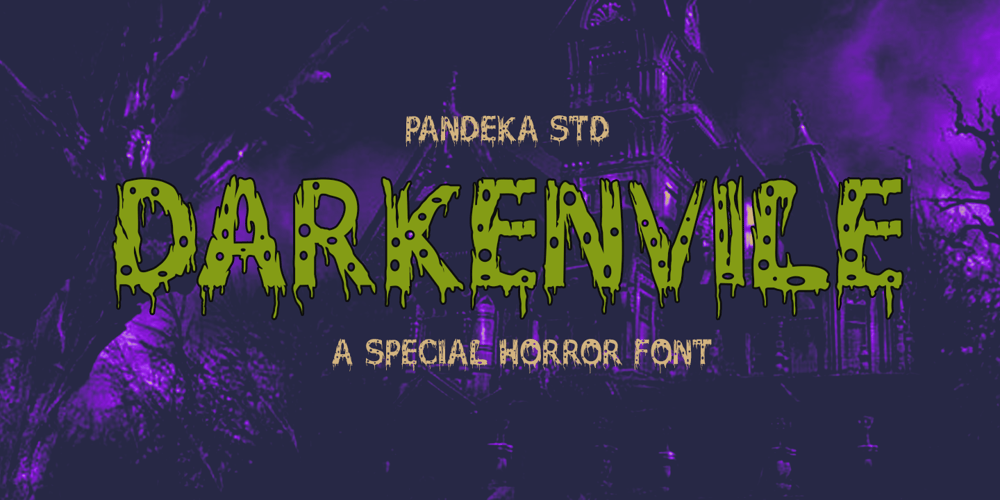
Darkenville Font Family was designed by Sagara Nararya and published by Pandeka Studio. Darkenville contains 2 styles and family package options. Introducing Darkenvile – A Creepy Hand-Drawn Horror FontThe terror with Darkenvile, the ultimate font for all things spooky, creepy, and downright scary! Perfect for Halloween-themed projects, monster fanatics, and anyone who loves the eerie vibe of a haunted night, Darkenvile is your go-to typeface for adding that blood-chilling touch to your designs.This hand-drawn font oozes with horror, making it ideal for everything from stickers and social media posts to movie posters, book covers, logos, and merchandise. With its unsettling curves and terrifying details, Darkenvile will bring your darkest design dreams to life.What’s Included? Darkenvile Main Files Regular and Italic Style Unique letterforms Works on PC & Mac Simple Installations Accessible in the Adobe Illustrator, Adobe Photoshop, Microsoft Word even work on Canva PUA Encoded Characters Fully accessible without additional design software. Language Support: Danish, English, Estonian, Filipino, Finnish, French, Friulian, Galician, German, Gusii, Indonesian, Irish, Italian, Luxembourgish, Norwegian Bokmål, Norwegian Nynorsk, Nyankole, Oromo, Portuguese, Romansh, Rombo, Spanish, Swedish, Swiss-German, Uzbek (Latin)Feel free to follow, like and share. Thanks so much for checking out my shop!Have a great day!Pandeka Studio